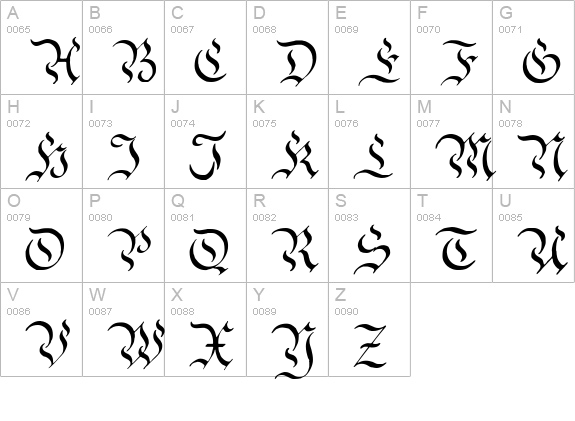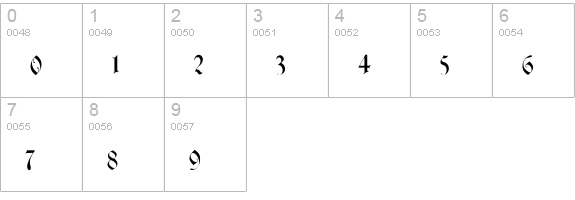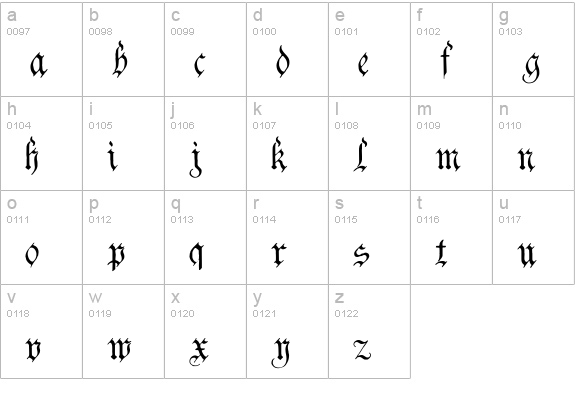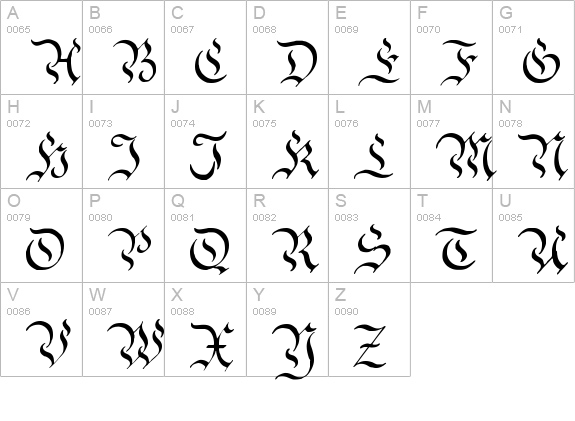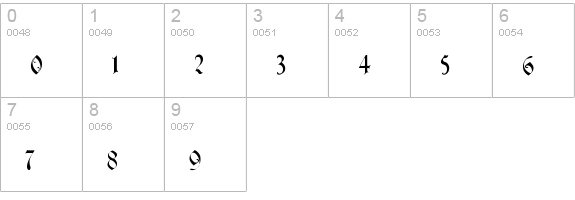
Charterwell Font Details
Introducing Charterwell font, a timeless and sophisticated typeface that exudes elegance and class. With its clean lines and subtle curves, Charterwell is perfect for a wide range of design projects, from invitations to branding to packaging. This versatile font offers a perfect balance of modernity and tradition, making it suitable for both contemporary and classic designs. Its sleek and stylish appearance will instantly elevate any project, adding a touch of sophistication and refinement. The best part? Charterwell font is available for free download at FontsMarket.com. That's right, you can easily access this exquisite font at no cost, allowing you to enhance your designs without breaking the bank. Don't miss out on the opportunity to add Charterwell to your font collection and take your projects to the next level.